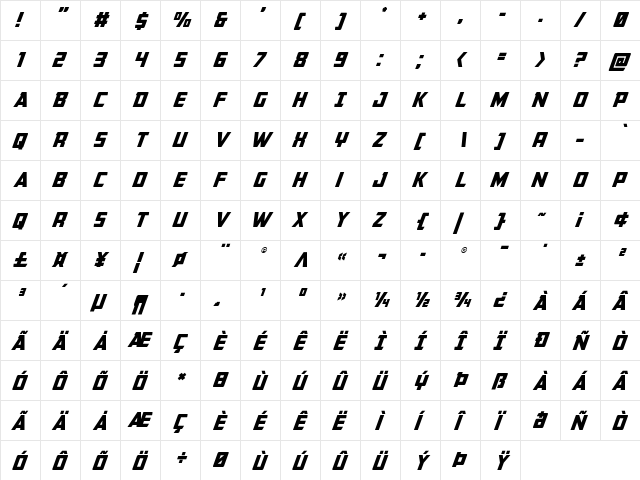
Buchanan Super-Italic Italic
Design Context for Buchanan Super-Italic Typeface
Buchanan Super-Italic offers clean, dependable letterforms without strong stylistic allegiance, making it a practical choice for designers who need flexibility. The dynamic lean of this cut emphasises speed and emphasis in any layout.
Pro Tip: Use Buchanan Super-Italic for emphasis, pull quotes, and subheadings where its slanted energy can add rhythm to the layout.